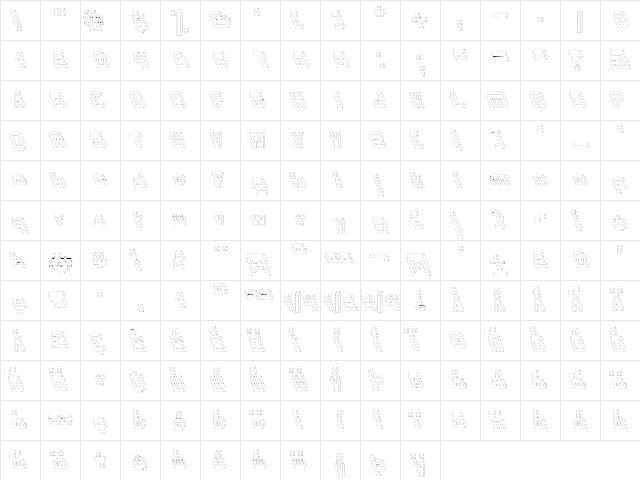
Internerd Regular Free Font
Internerd Regular
Foundry: Type Sailor
Designer: David Espinosa
Design Context for Internerd
Internerd is a composed and adaptable typeface that performs quietly and consistently across a wide range of design contexts.